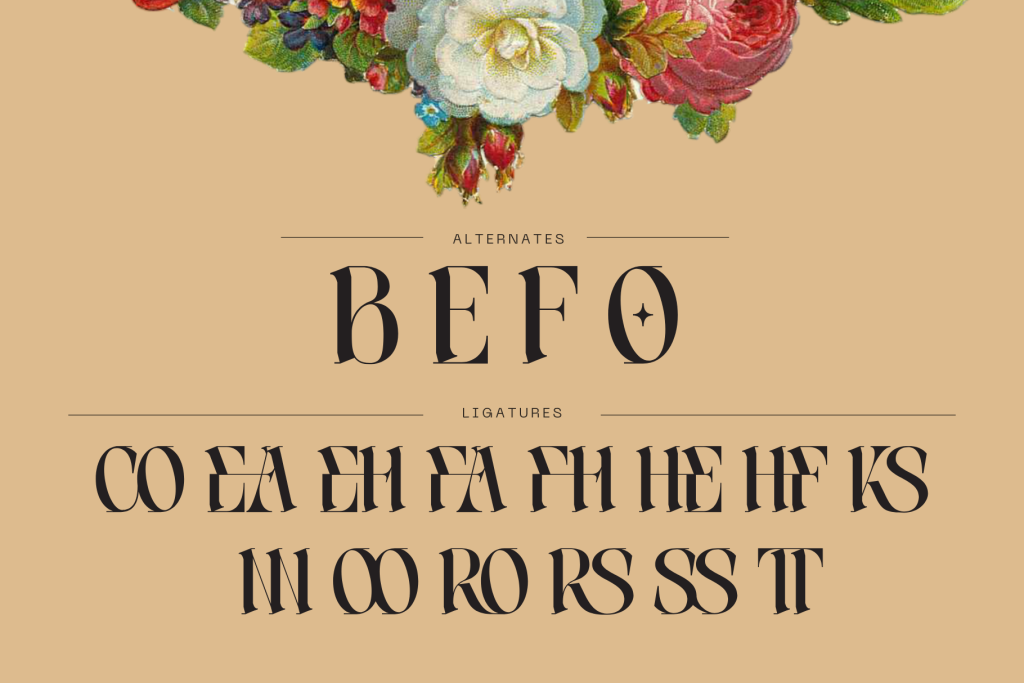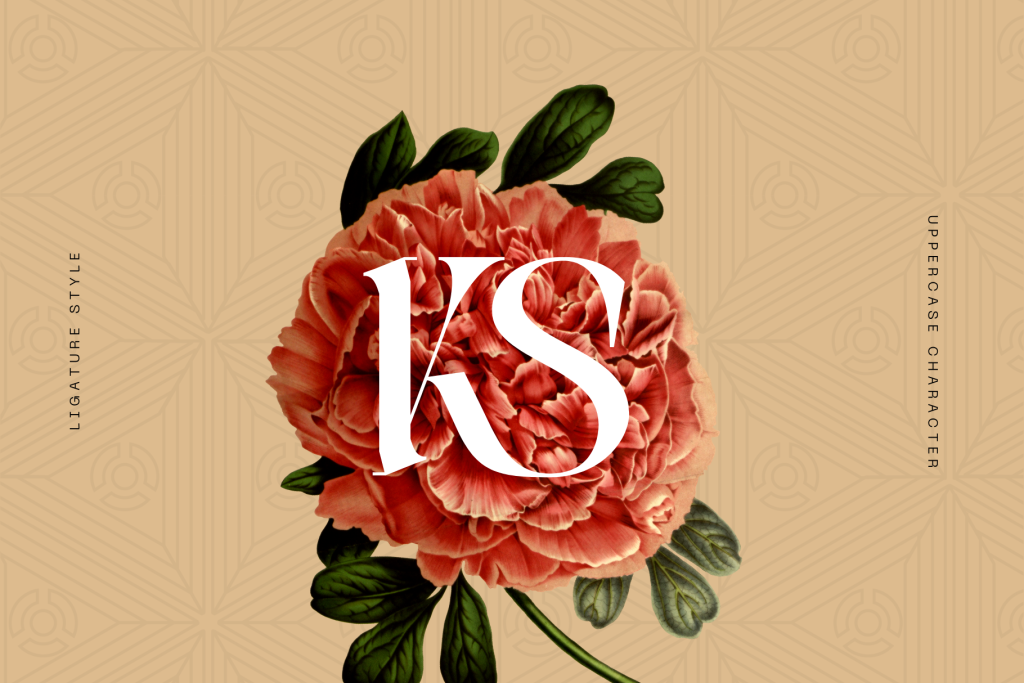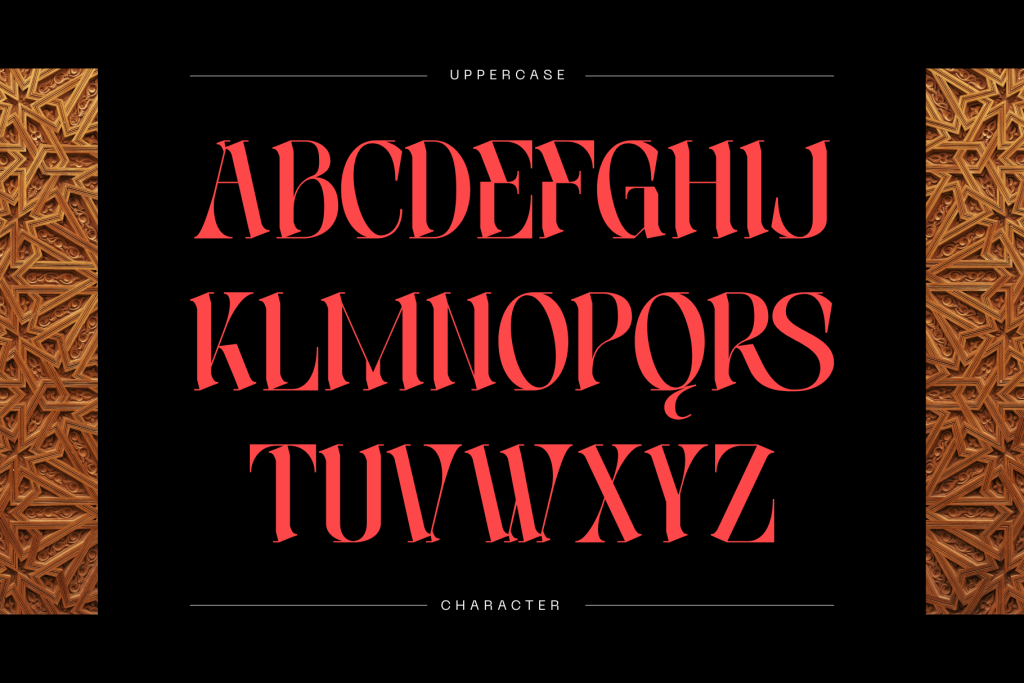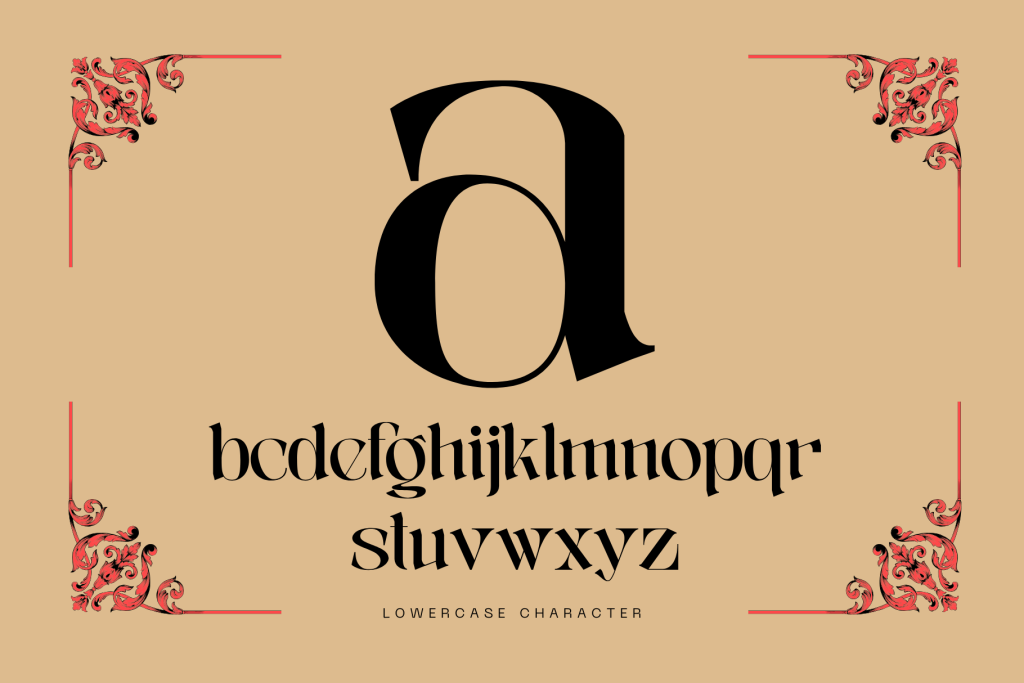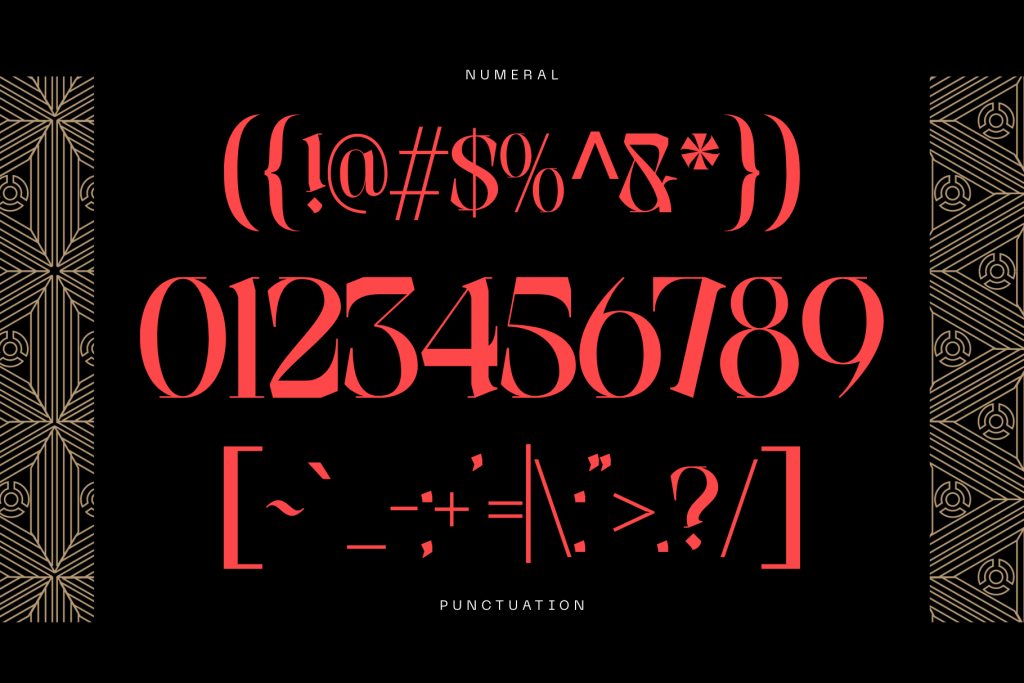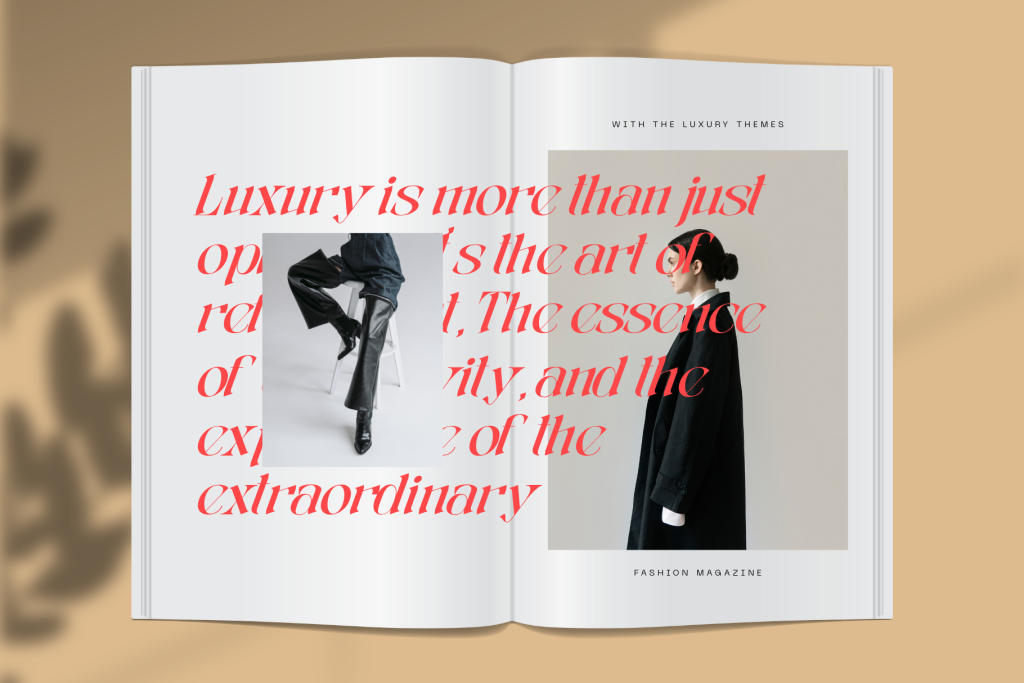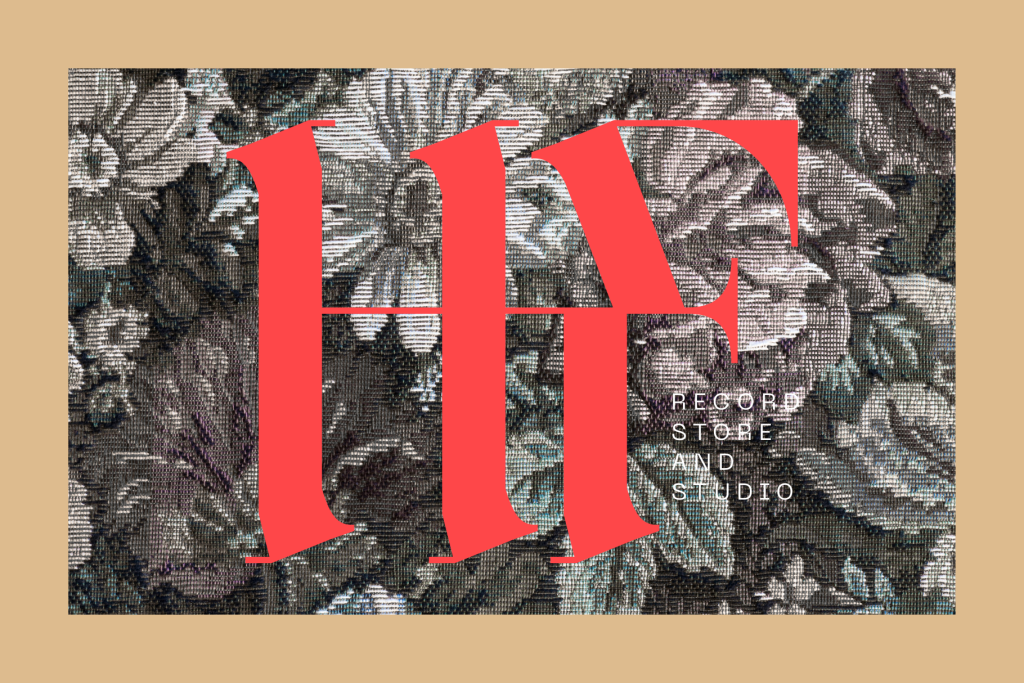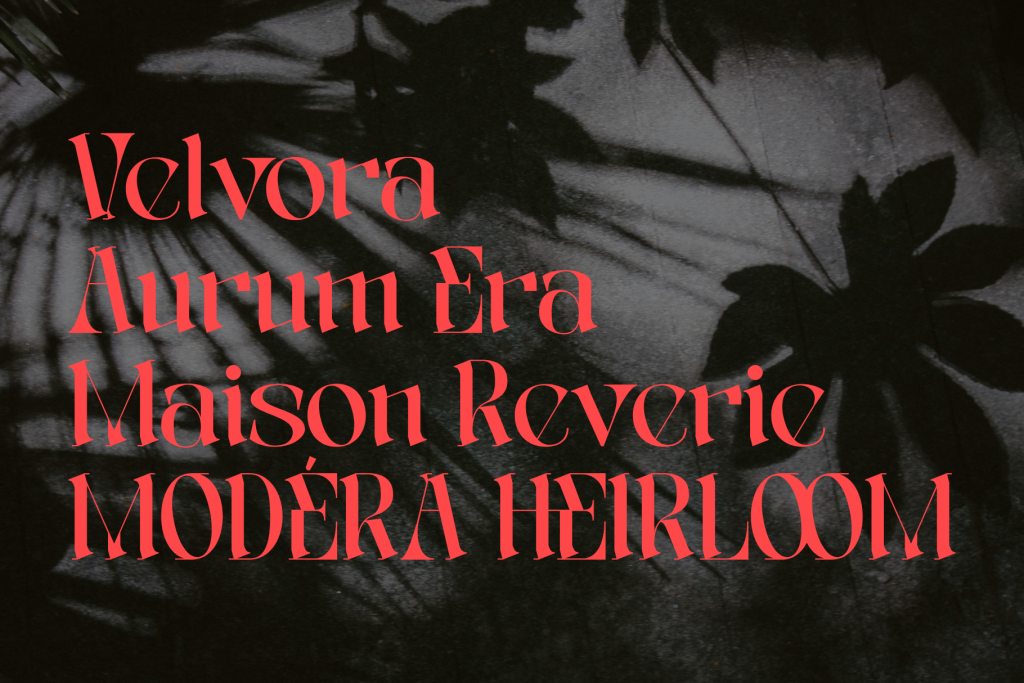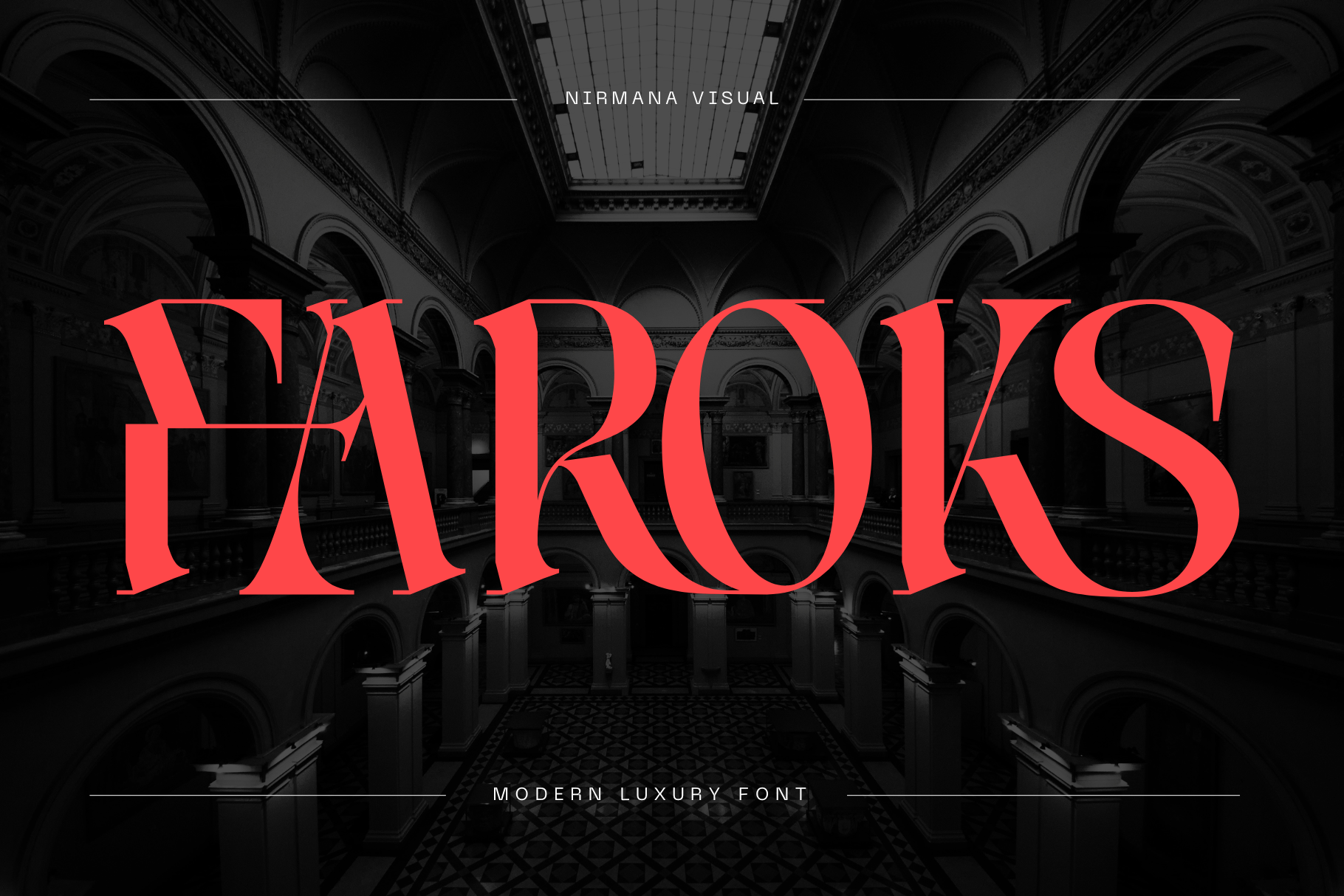
Faroks Modern – Luxury Logo Font
Faroks Modern offers beautiful typographic harmony for a diversity of design projects, including logos & branding, social media posts, advertisements & product designs.
Features :
• Multilingual Support
• Regular & Italic Font
• Display With Luxury Modern Style
Faroks Modern is a luxurious serif display font designed for modern branding and high-end visuals. With its sleek, sharp serifs and balanced elegance, it brings a contemporary twist to classic typography. Available in both Regular and Italic styles, Faroks Modern is ideal for logos, editorial titles, fashion branding, and upscale packaging. Its refined curves and bold presence make it a standout choice for sophisticated, modern design.